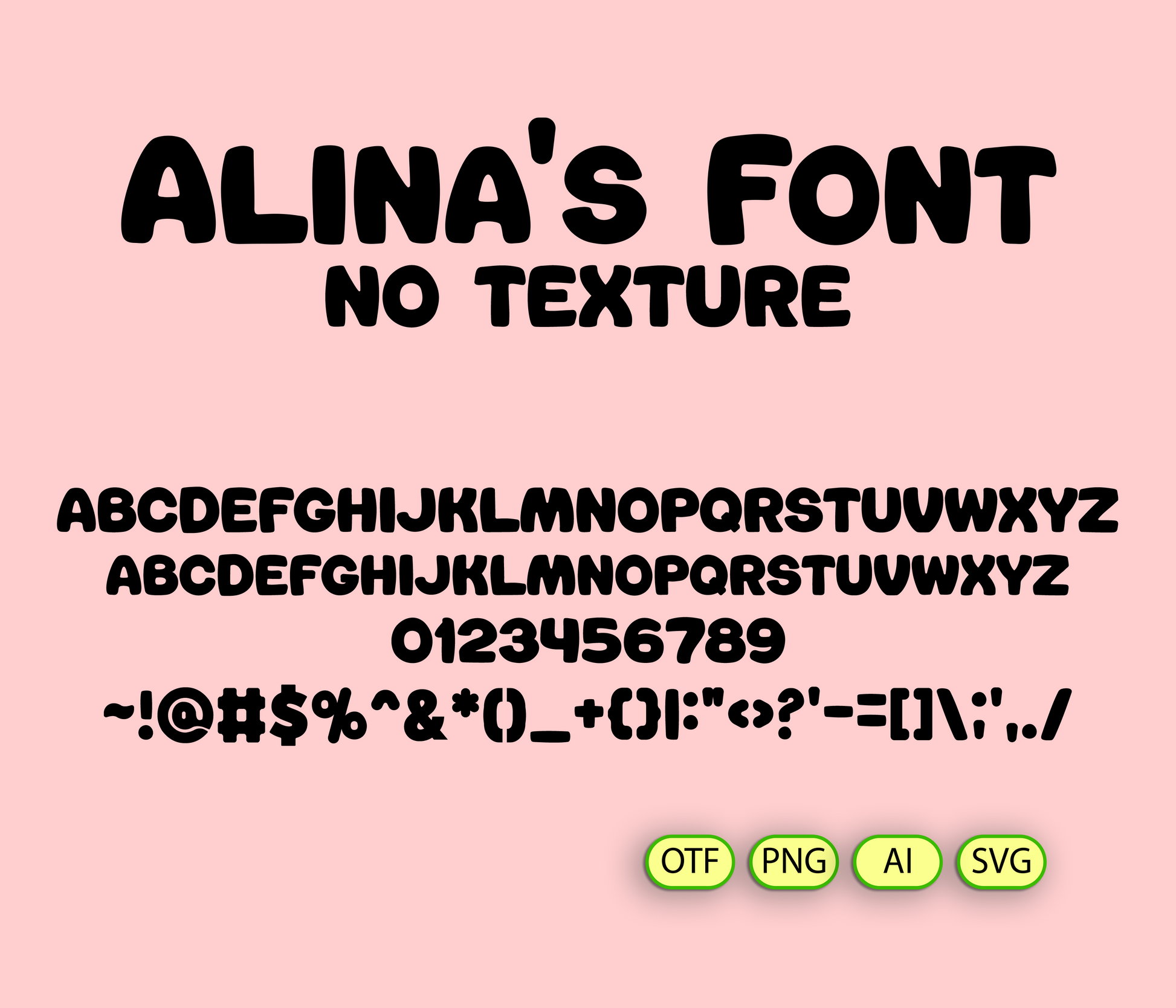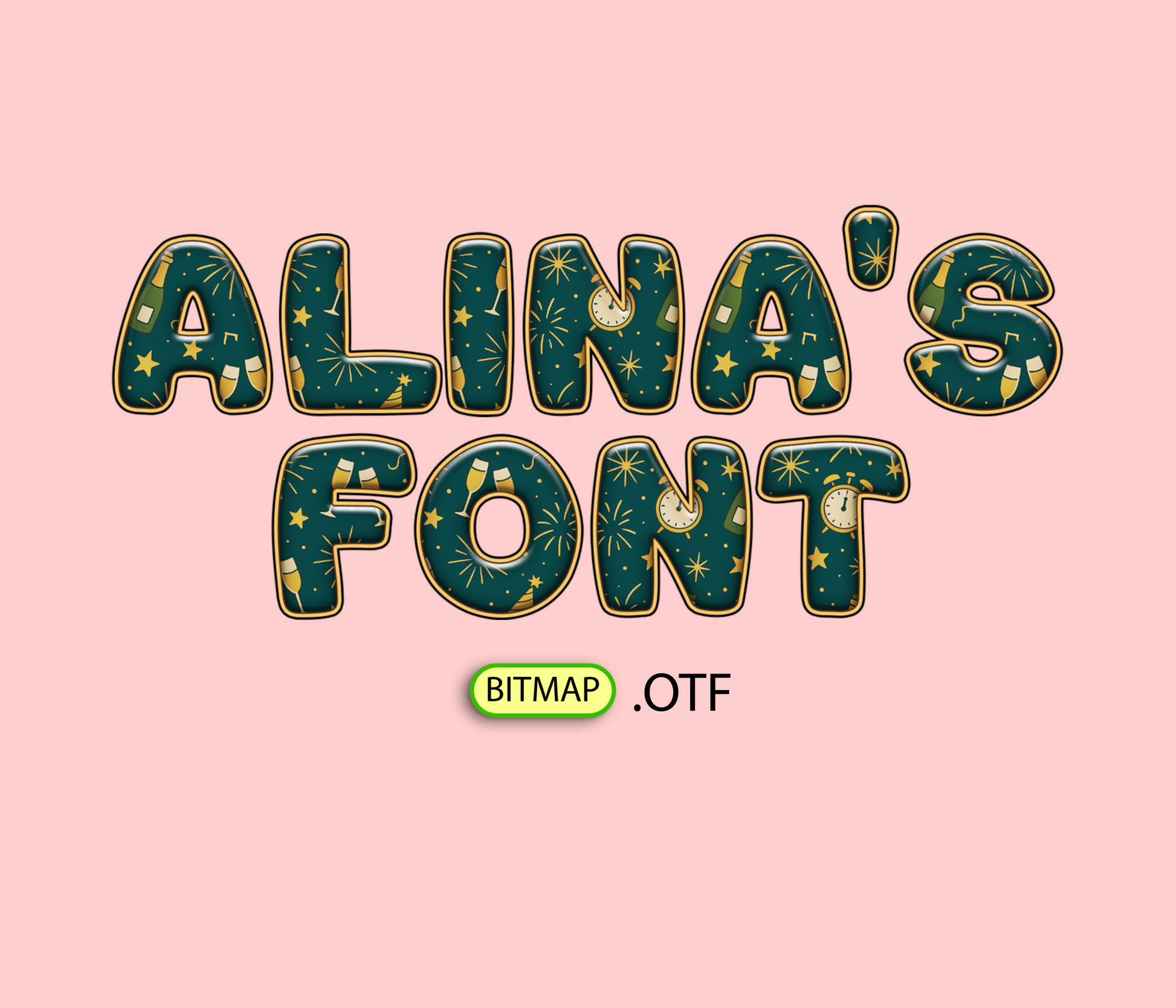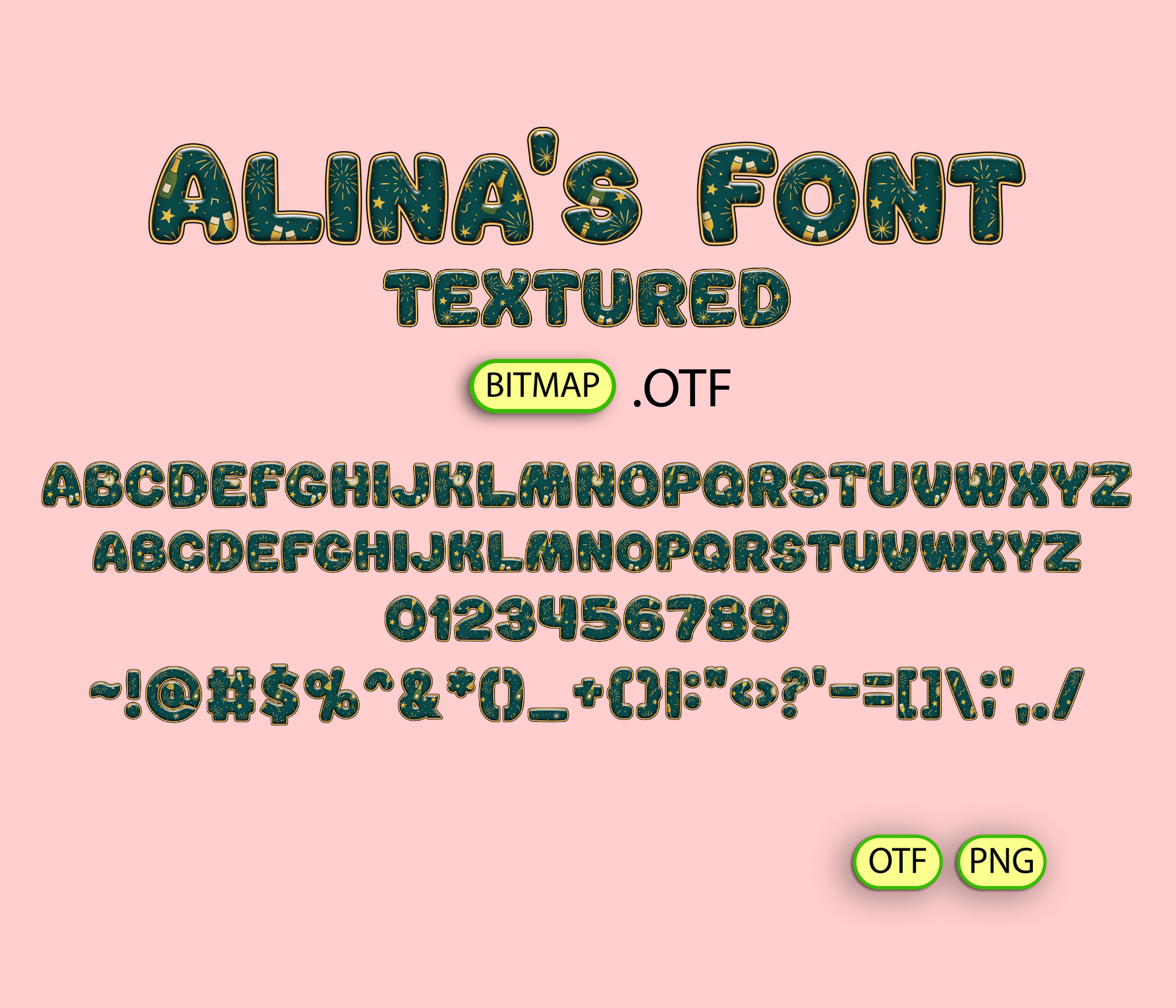
New Year Golden Resolution Typeface Textured
Embrace the promise of new beginnings with our Golden Resolution Typeface, embodying the spirit of ball drops and midnight celebrations. Designed for celebration venues, party planners, invitation designers, and creative visionaries, this font delivers the jubilant, transformative energy of clock strikes and champagne bubbles to your design projects. Craft spectacular displays, celebration-themed merchandise, or online content with the radiant, hopeful character of sparklers and countdown clocks.
Our Golden Resolution Typeface showcases ornate, timepiece-inspired details and triumphant letterforms that capture the ceremonial yet joyous essence of annual renewal traditions. Perfect for:
- Hospitality Venues: Develop compelling brand identity, banquet signage, and marketing materials for hotels, nightclubs, and New Year's Eve party destinations
- Celebration Services: Outstanding for midnight masquerade invitations, resolution workshop materials, and festive designs that honor year-end traditions
- Online Marketing: Transform digital platforms, email campaigns, and social media with gleaming typography that radiates excitement and fresh starts
- Calendar Industry: Incorporate authentic celebratory flair into planner designs, goal-setting journals, and promotional content for productivity brands
- Creative Projects: Add New Year elegance to photo albums, vision boards, and decorative items inspired by celebratory aesthetics
Our Golden Resolution Typeface provides glittering and standard alternatives, ensuring flawless functionality across all design software, including Canva. This versatility enables effortless integration for creators at every skill level.
Many hunt for digital font generators to replicate the Golden Resolution Typeface style. Avoid these shortcuts! No web generator can reproduce the craftsmanship of our professional font, offered in two distinct versions: a decorative textured format and a clean edition, perfect for precision cutting equipment.